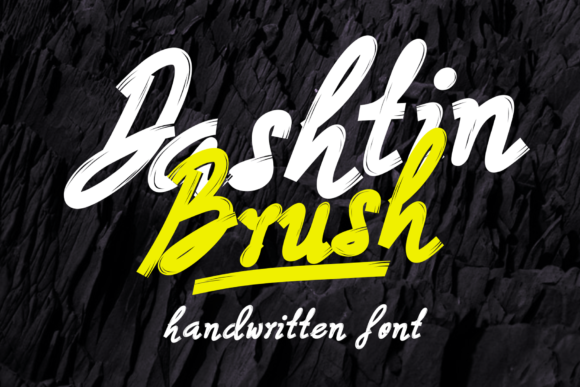
Dashtin Brush: A Review for Editorial Design
It was late afternoon when I found myself staring at a blank canvas for a new lifestyle blog header. The content was ready—a collection of thoughtful essays on slow living and mindful design—but the visual identity felt flat. I had tried several geometric sans serif fonts, but they felt too corporate. I needed something that conveyed warmth without sacrificing structure. That is when I opened Dashtin Brush. In moments like these, finding the right display font can transform a layout from generic to memorable. This review explores how Dashtin Brush performs in real-world publishing scenarios, from digital magazines to printable workbooks.
The Visual Character of Dashtin Brush
At its core, Dashtin Brush is a display typeface defined by its simple yet expressive brush texture. Unlike chaotic handwritten fonts that struggle with legibility, this typeface maintains a consistent rhythm while mimicking the organic flow of a marker or paintbrush. When I first applied it to a mock-up for a recipe ebook cover, the immediate effect was one of approachability. The strokes are confident and clean, avoiding the overly decorative flourishes that often clutter modern typography.
For editorial designers, the appeal lies in its versatility. It bridges the gap between a formal serif font and a casual script. The texture adds a layer of human touch that resonates well with audiences seeking authenticity. Whether you are designing a wedding guide or a fashion apparel brand identity, the font carries a mood that is both professional and inviting. It does not shout; instead, it draws the reader in with a quiet confidence that supports the narrative rather than overpowering it.
Testing Hierarchy in Real Layouts
To truly understand the utility of Dashtin Brush, I tested it across various content structures. In a recent project redesigning a newsletter graphic, I used the font for the main headline. The result was striking; the bold weight of the characters created an immediate focal point, guiding the eye naturally down to the body copy. This demonstrates the font's strength in establishing visual hierarchy.
I also experimented with using it for pull quotes within a long-form article. Here, the brush texture provided a necessary break in the visual monotony of standard paragraphs. It highlighted key insights without disrupting the reading flow. However, readability considerations are crucial. While Dashtin Brush excels as a title or accent, it is not designed for dense paragraphs. Using a creative font like this for body text can strain the eyes, especially on mobile screens where pixel density varies. For screen reading and PDF exports, it remains best suited for headers, chapter openers, and section dividers.
- Blog Headers: Perfect for creating a welcoming entry point for readers.
- Ebook Titles: Adds a personal touch to self-published guides and workbooks.
- Social Media Graphics: Stands out in crowded feeds like Instagram quotes.
- Printable Planners: Offers a stylish alternative to rigid grid lines.
Strategic Font Pairing for Editorial Balance
No display font exists in a vacuum. To maximize the impact of Dashtin Brush, strategic font pairing is essential. In my testing, I found that pairing this brush style with a clean, neutral sans serif font for captions and navigation created a harmonious balance. The contrast between the organic texture of the display font and the crisp geometry of the supporting type enhances overall readability.
For more traditional publications, such as a digital magazine layout, pairing Dashtin Brush with a classic serif font for the body copy works beautifully. This combination evokes a sense of modern elegance, suitable for high-end lifestyle brands or literary reviews. The goal is to let the display font handle the emotional hook while the secondary typeface manages the informational load. This approach ensures that your publication maintains a strong brand identity while remaining accessible to all readers.
Practical Considerations for Creators
When to Avoid Dashtin Brush
While Dashtin Brush is a powerful tool for branding and headlines, there are contexts where it may not be the best choice. Formal reports, academic papers, or dense financial documents require a level of neutrality and precision that a brush-style font cannot provide. Similarly, small captions or footnotes should avoid this typeface, as the texture can become muddy at low resolutions. Understanding the limitations of a handwritten font is just as important as knowing its strengths. By reserving it for titles and accents, you maintain the integrity of your design system.
In the world of web design and packaging, Dashtin Brush offers a refreshing alternative to the overused geometric styles. It brings a sense of craftsmanship to digital products, making them feel curated and thoughtful. For bloggers, publishers, and authors looking to elevate their content structure, this font provides the perfect blend of personality and professionalism. It is not just about choosing a pretty letterform; it is about selecting a voice that aligns with your story.